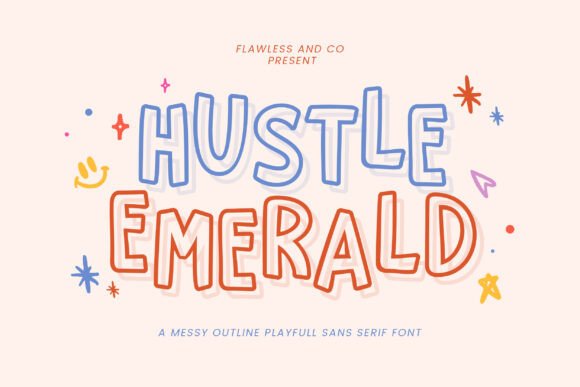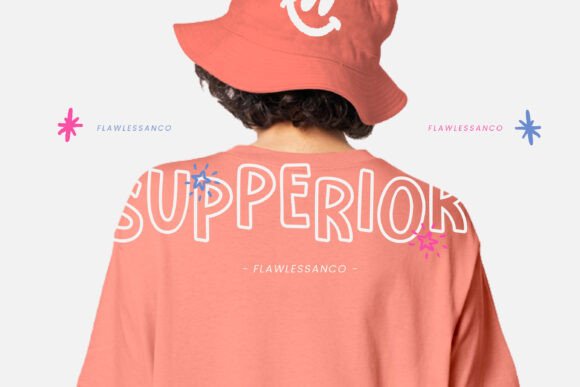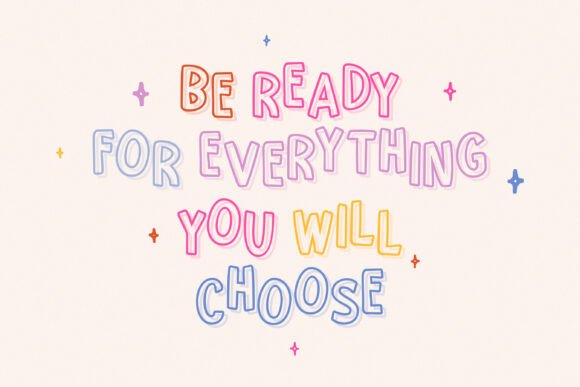
Hustled Emerald Font
About the Hustled Emerald Font
The Hustled Emerald Font is here to transform your projects with its distinctive character and style. Hustled Emerald is a messy outline, playful sans serif font that brings a fun and energetic vibe to your designs. With its hand-drawn aesthetic and unique character, this font is suitable for children’s books, comic titles, creative branding, posters, social media graphics, and playful packaging.
Hustled Emerald thrives in applications demanding high visual impact, such as headlines, logos for youthful brands, short-form content on social media, and eye-catching packaging designs. Its playful nature makes it ideal for projects targeting a younger demographic or conveying a sense of fun and energy. Avoid using it for large blocks of body text or UI elements where legibility is paramount; its irregular forms can hinder readability in extended passages.
Pairing Hustled Emerald effectively requires consideration of its informal, hand-drawn style. A clean, geometric sans-serif like Montserrat can provide a strong contrast and enhance readability in supporting text. Alternatively, a classic serif like Playfair Display offers a sophisticated counterpoint, grounding the playful energy of Hustled Emerald. Avoid pairing it with other highly decorative or overly stylized fonts to prevent visual clutter.
The font’s core personality is undeniably playful and energetic, conveying a sense of youthful enthusiasm and creativity. It’s best suited for brands and projects that aim to communicate a friendly, approachable, and slightly rebellious attitude.
Hustled Emerald Font Usage Examples
Hustled Emerald Font Example